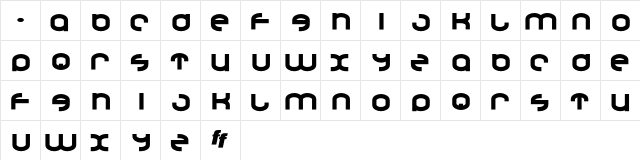
Droncat Regular
Design Context for Droncat Typeface
Droncat offers clean, dependable letterforms without strong stylistic allegiance, making it a practical choice for designers who need flexibility.